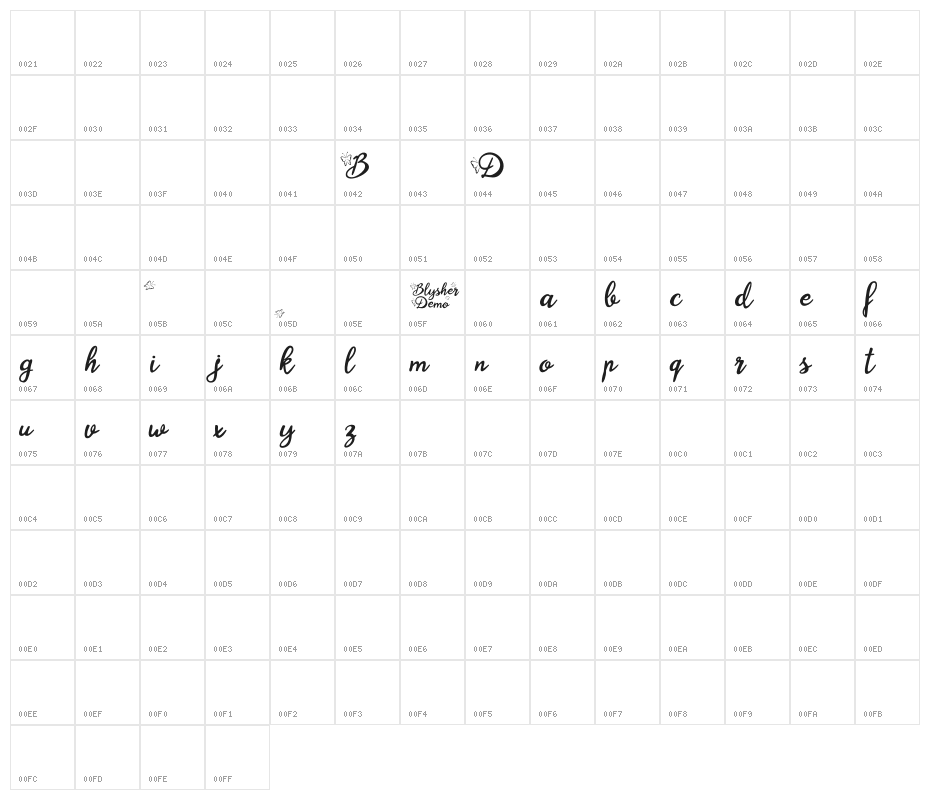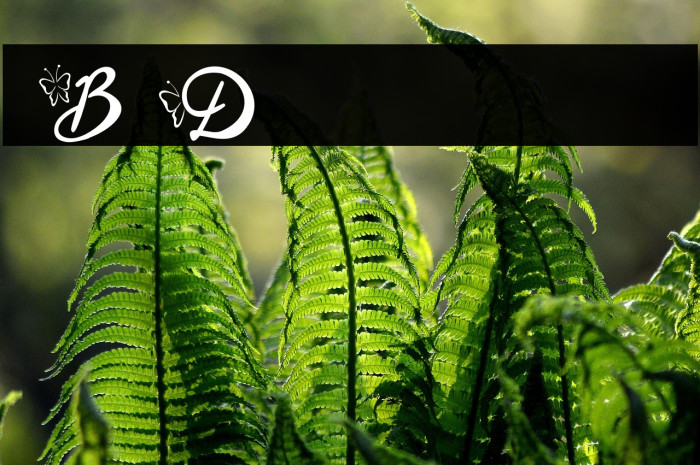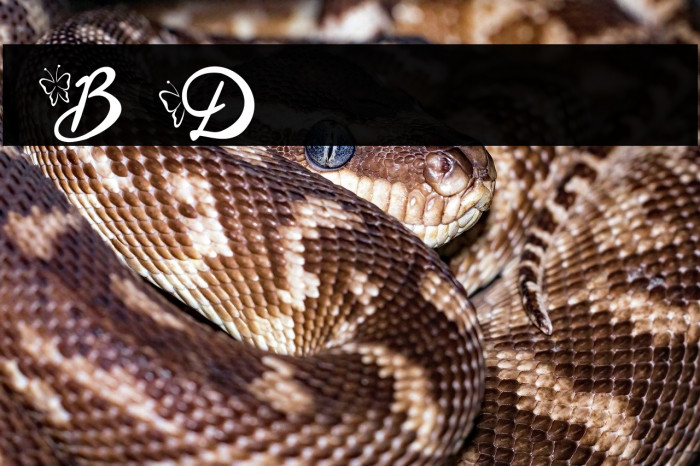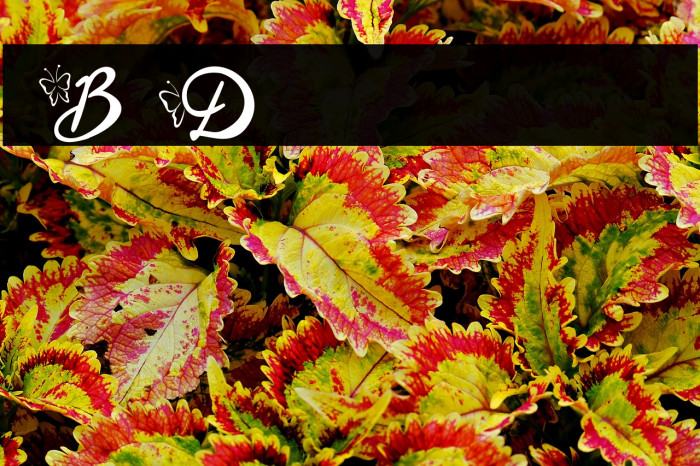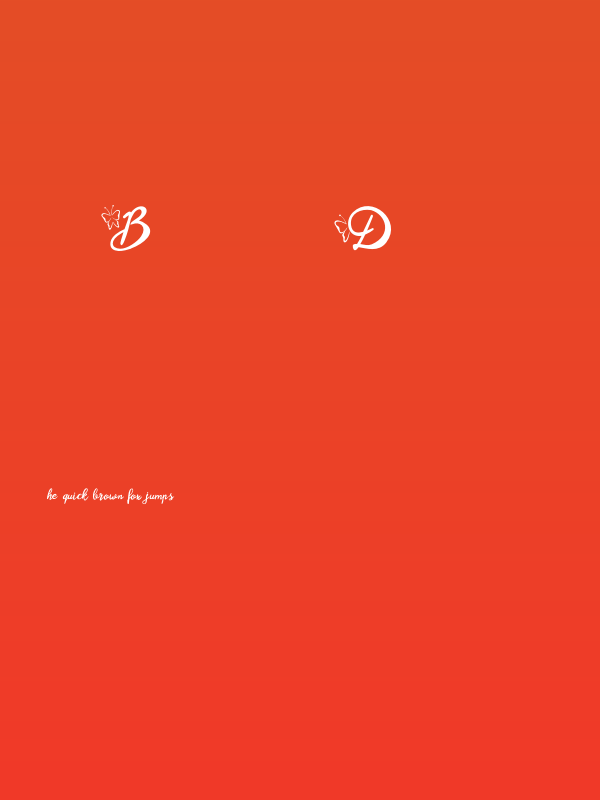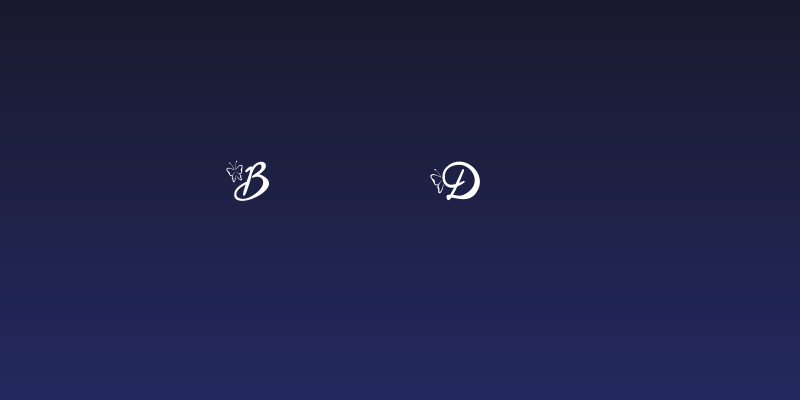
Blysher Demo Font
Blysher Demo Description
This font features a flowing, cursive style with a handwritten appearance. The letters are connected, creating a smooth and elegant script that is both stylish and readable. The uppercase letters have a distinctive flair, with decorative elements such as small flourishes and loops that add a touch of sophistication. The lowercase letters maintain a consistent baseline, enhancing the overall harmony of the text. The font's design is versatile, making it suitable for a variety of creative projects where a personal and artistic touch is desired.